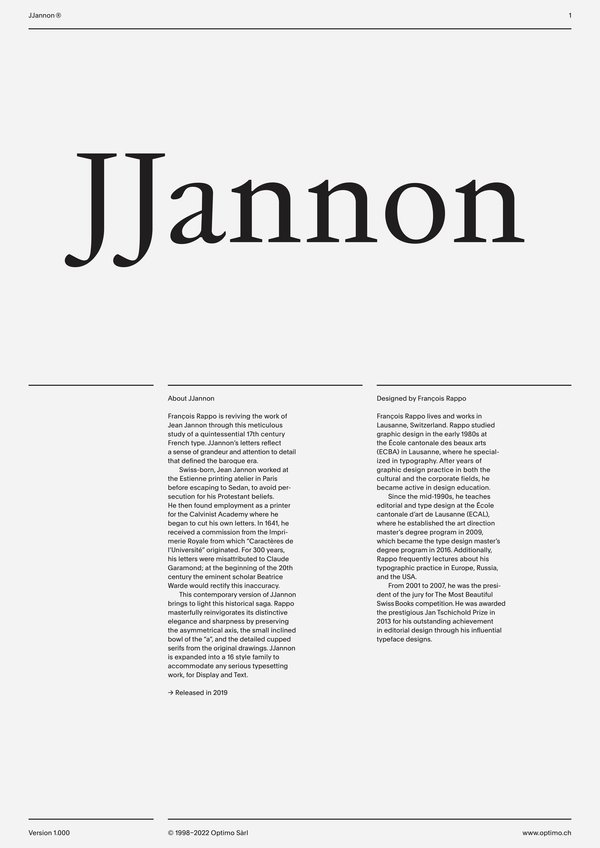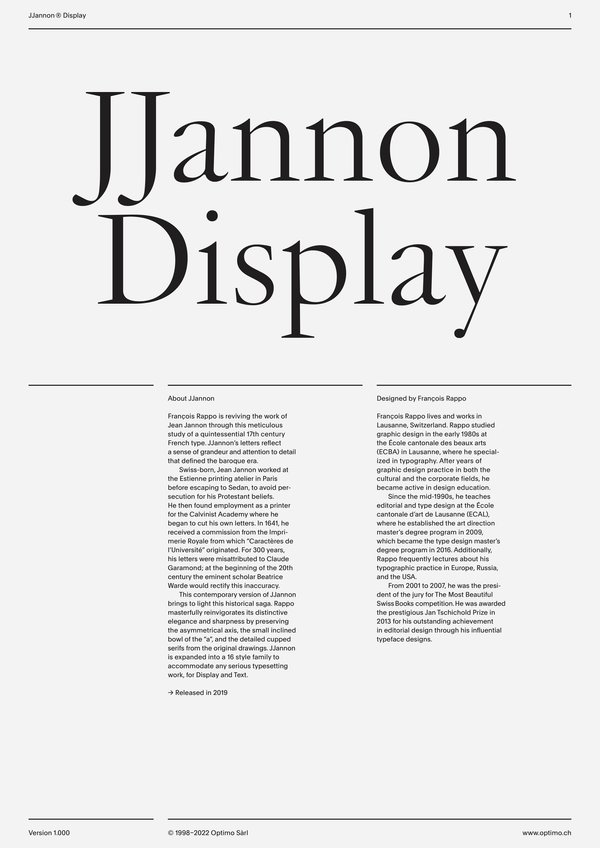
JJannon
Case Sensitive Forms
All Caps [cpsp]
Case Sensitive Forms [case]
This function formats the text in uppercase and adjusts spacing between all capital letters. It also applies the ‘Case Sensitive Forms’ feature which replaces certain characters with alternates that are better suited for all capital text, especially related to punctuation.
Alternate Q
Stylistics Set 1 [ss01]
This feature replaces glyph(s) with stylistic alternate(s).
Alternate Q [italics only]
Stylistic Set 2 [ss02]
This feature replaces glyph(s) with stylistic alternate(s).
Alternate V W v w [italic only]
Stylistic Set 3 [ss03]
This feature replaces glyph(s) with stylistic alternate(s).
Alternate z [italics only]
Stylistic Set 4 [ss04]
This feature replaces glyph(s) with stylistic alternate(s).
Historical long s
Stylistic Set 7 [ss07]
This feature replaces glyph(s) with stylistic alternate(s).
Tabular Lining Figures
Tabular Lining Figures [tnum–lnum]
Based on the proportions of the capitals, lining figures have an invariable height. With the combination of the tabular spacing format, the width of each numeral is uniformized. This feature is useful when numerals need to all lined up. It facilitates the reading of numbers set within columns or tables. As some applications don’t have access to this feature, proportional figures are set as the default choice.
Proportional Oldstyle Figures
Proportional Oldstyle Figures [pnum–onum]
Based on the design of the lowercase, oldstyle figures have varying ascenders and descenders. Like most of the letters, each number has an appropriate width based on its shape. The combination of oldstyle figures with proportional setting generate numerals perfectly adapted for text.
Tabular Oldstyle Figures
Tabular Oldstyle Figures [tnum–onum]
Based on the design of the lowercase, oldstyle figures have varying ascenders and descenders. With the combination of the tabular spacing format, the width of each numeral is uniformized. This feature is useful when numerals need to all lined up. It facilitates the reading of numbers set within columns or tables.
Alternate & [italics only]
Stylistic Set 5 [ss05]
This feature replaces glyph(s) with stylistic alternate(s).
Fractions
With this feature, any numbers separated by a slash will automatically turn into a fraction. To fit in fraction configuration, numerals have been designed smaller and their weights have been adjusted to suit the typeface.
Lowercase math symbols
Stylistic Set 6 [ss06]
This feature activates alternate lowercase positioning of mathematical symbols.
This feature replaces any letter following a numeral with its matching superior letters. French language uses the ordinal indicators such as ‘er’ for 1er premier, while Spanish, Portuguese and Italian require the feminine and masculine ordinals ‘a,’ ‘o’ for 1º, 1ª. Ordinals are designed to match the weight of the typeface.
Slashed Zero
Slashed Zero [zero]
Originally created to avoid the confusion between the ‘0’ and the ‘O’, this feature substitutes all zeros in a selected text by a slashed form of the zero.
Slashed Zero Oldstyle
Slashed Zero [zero]
Originally created to avoid the confusion between the ‘0’ and the ‘O’, this feature substitutes all zeros in a selected text by a slashed form of the zero.
Proportional Oldstyle Figures [onum]
Tabular figures are all of equal width. They are only needed when the figures must all line up from one line to the next, as in a table. Proportional figures have varying widths, just like most letters; each number has a width appropriate to its design. Lining figures are all the same height, usually similar to that of capital letters. They are needed for use with all-capital settings.
Multiply sign
Stylistic Set 20 [ss20]
This feature substitutes the letter “x” into the multiplication sign.
Numerators [numr]
This feature substitutes glyphs with their matching smaller alternates. The numerators are the same glyphs that are used to create fractions, their vertical position remains within the capital letters height. These glyphs are reduced in size and designed slightly heavier to keep them consistent with the rest of the font.
This contemporary version of JJannon highlights this historical saga. Rappo masterfully reinvigorates its distinctive elegance and sharpness by preserving the asymmetrical axis, the small inclined bowl of the “a,” and the detailed cupped serifs from the original drawings.